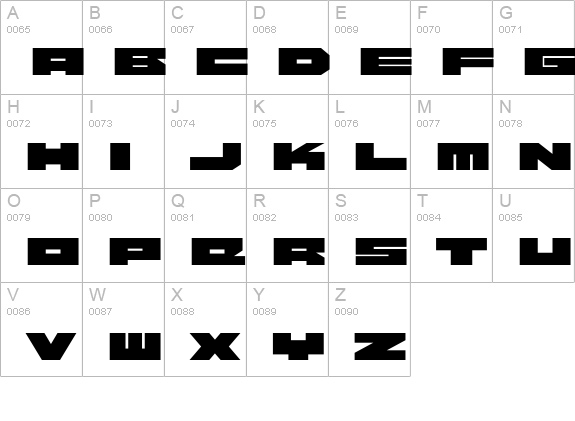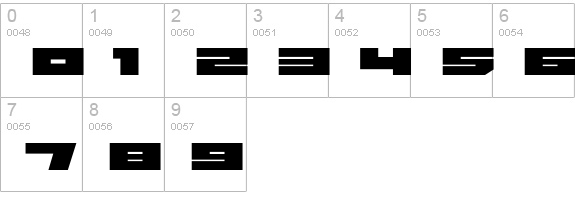
Beekman-SquareBold Font Details
Introducing Beekman-SquareBold font, a bold and modern typeface that exudes confidence and sophistication. With its clean lines and strong presence, Beekman-SquareBold is perfect for making a statement in your design projects. Whether you're creating eye-catching headlines, impactful posters, or stylish branding materials, this font will surely catch the attention of your audience. The best part? Beekman-SquareBold font is available for free download at FontsMarket.com. That's right, you can easily enhance your creative projects with this striking font without any cost. Don't miss out on the opportunity to elevate your designs with Beekman-SquareBold font today!